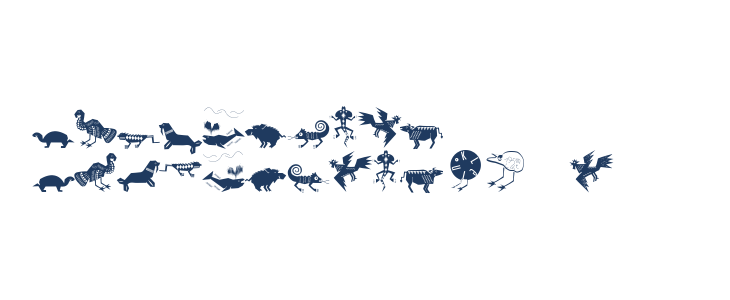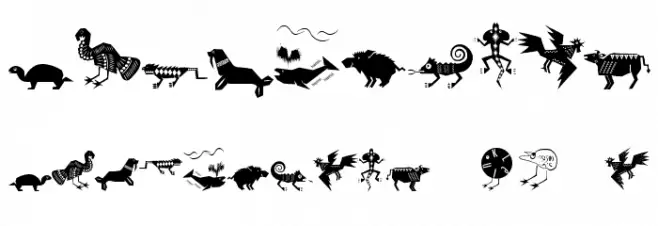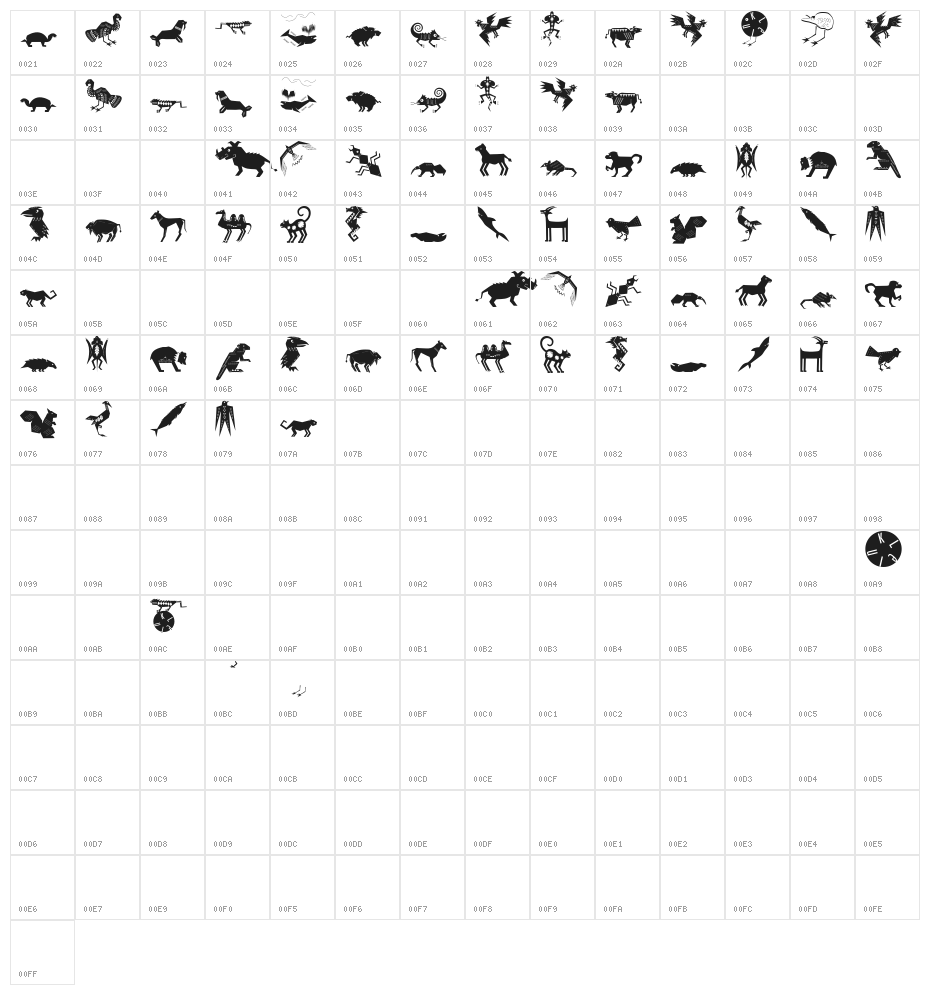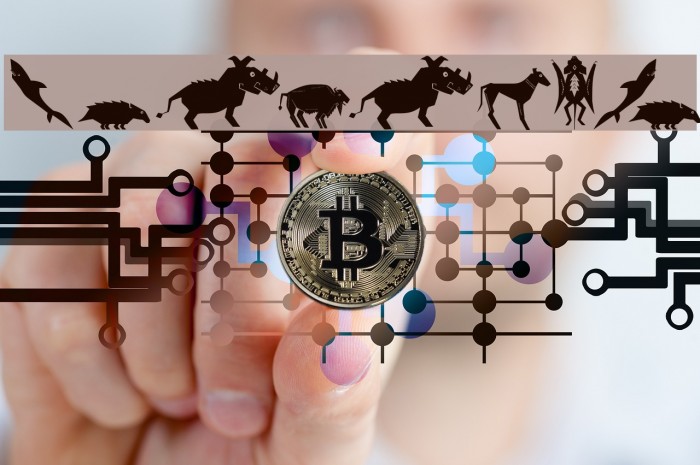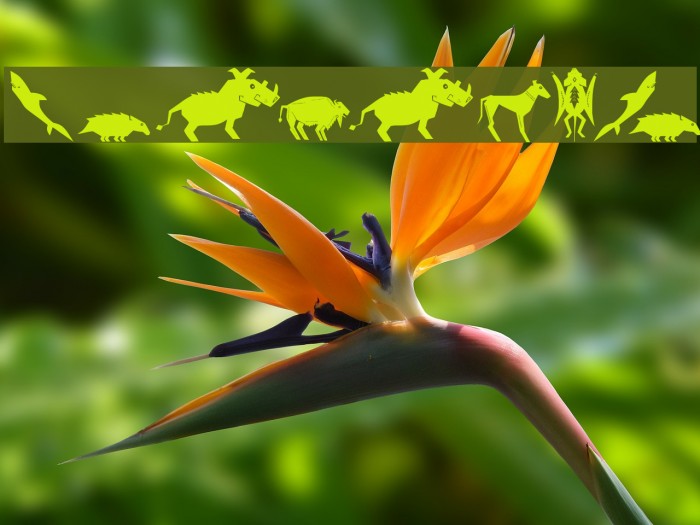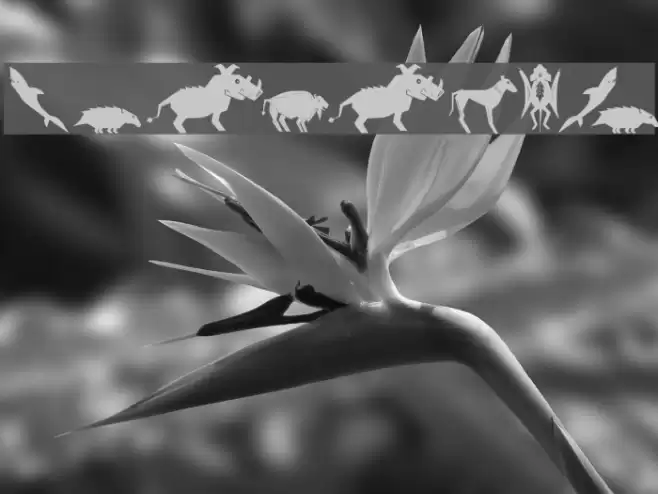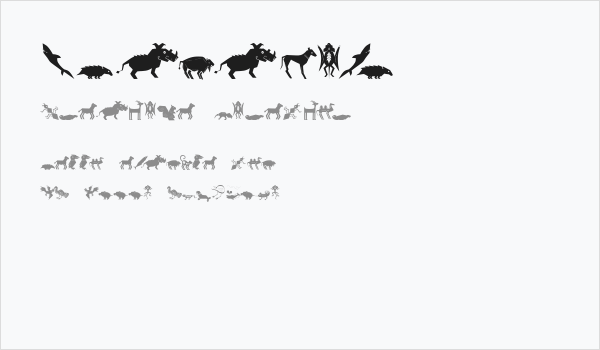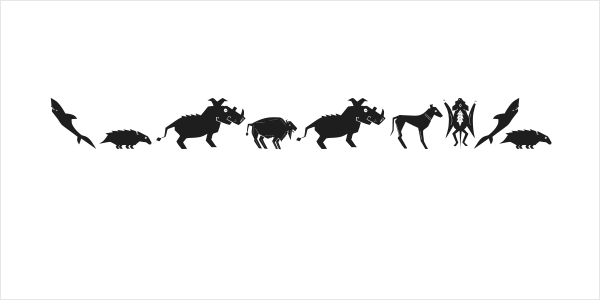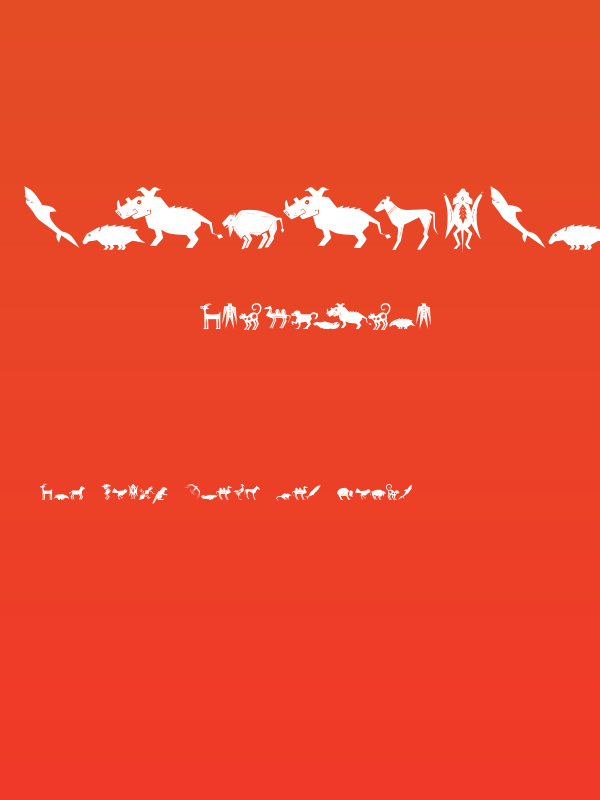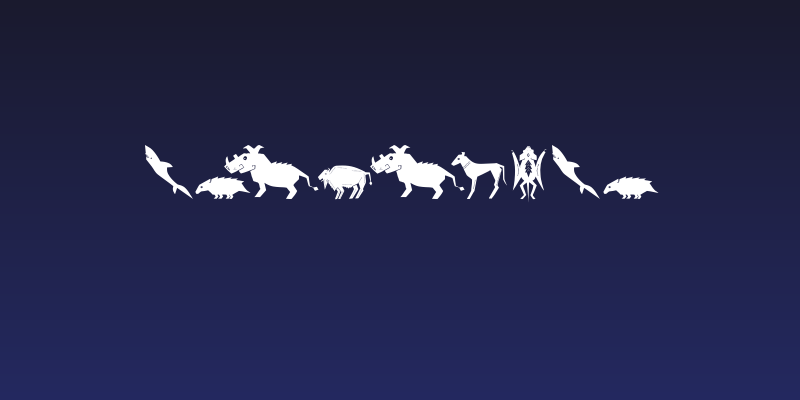
Shamanish Font
Shamanish Description
This unique and artistic collection features a series of stylized animal and mythical creature silhouettes, each crafted with intricate details and imaginative forms. The designs incorporate elements of tribal and indigenous art, showcasing a variety of creatures in dynamic poses. The bold, black silhouettes are contrasted against a white background, emphasizing their striking and dramatic appearance. Each character is distinct, with some featuring geometric patterns and others displaying more organic, flowing lines. The overall aesthetic is both whimsical and mysterious, evoking a sense of ancient storytelling and cultural symbolism.
| Use Case | Logos, Illustrations, Themed Decor |
| Proposed Projects | This collection is ideal for projects that require a touch of cultural depth and artistic flair, such as book illustrations, educational materials, or themed event decorations. It can also be used in branding for products that emphasize creativity and cul |